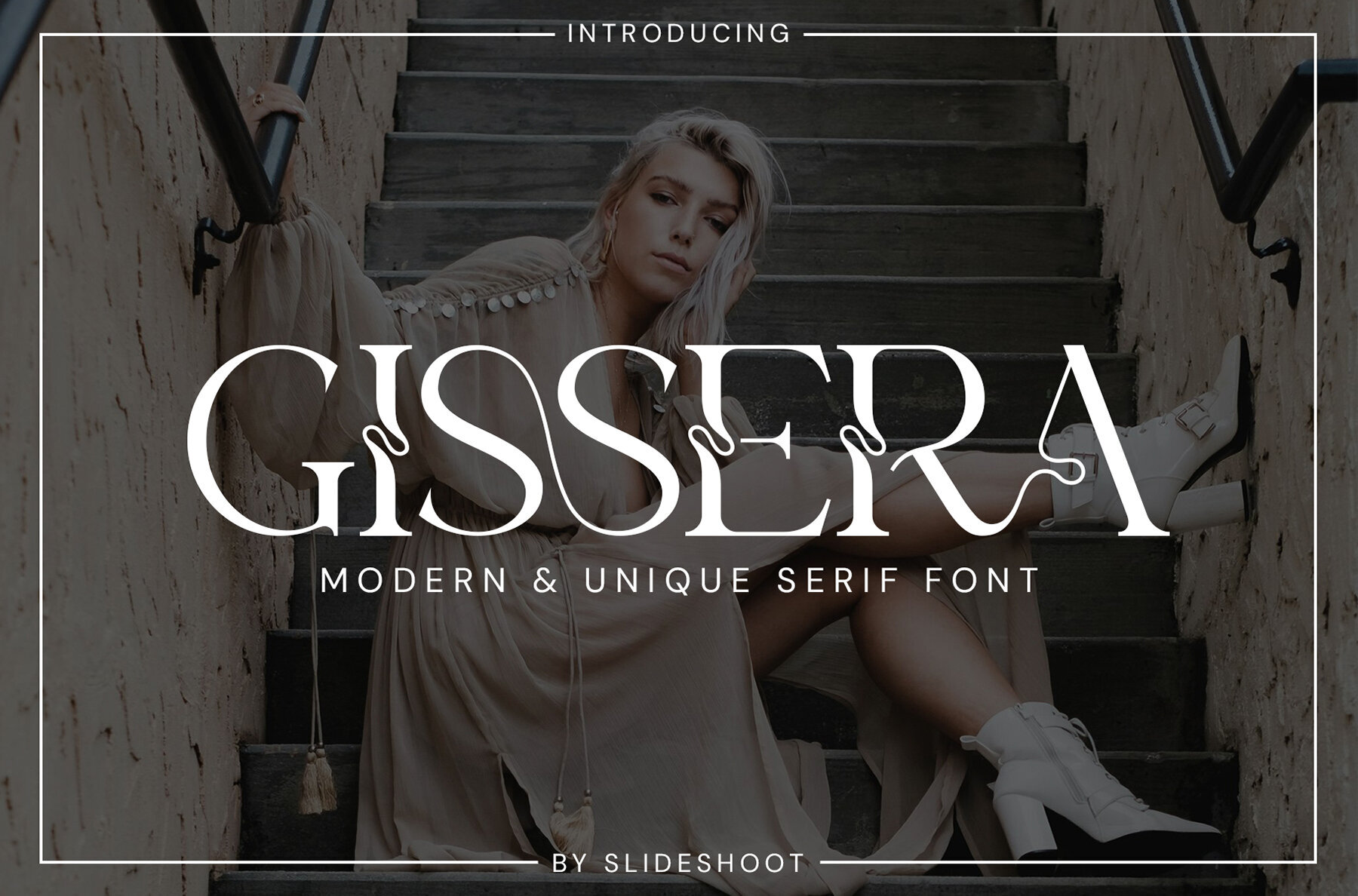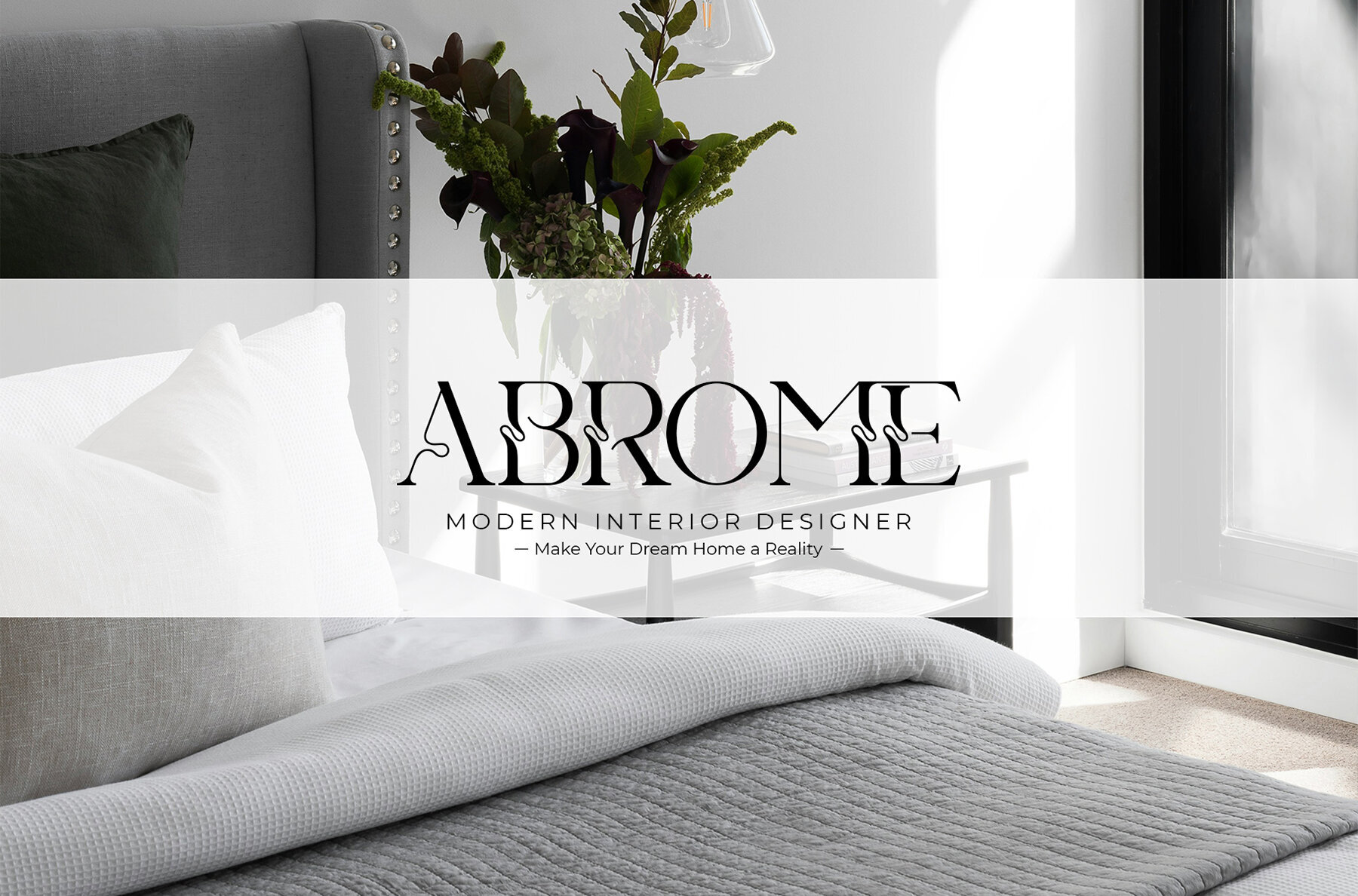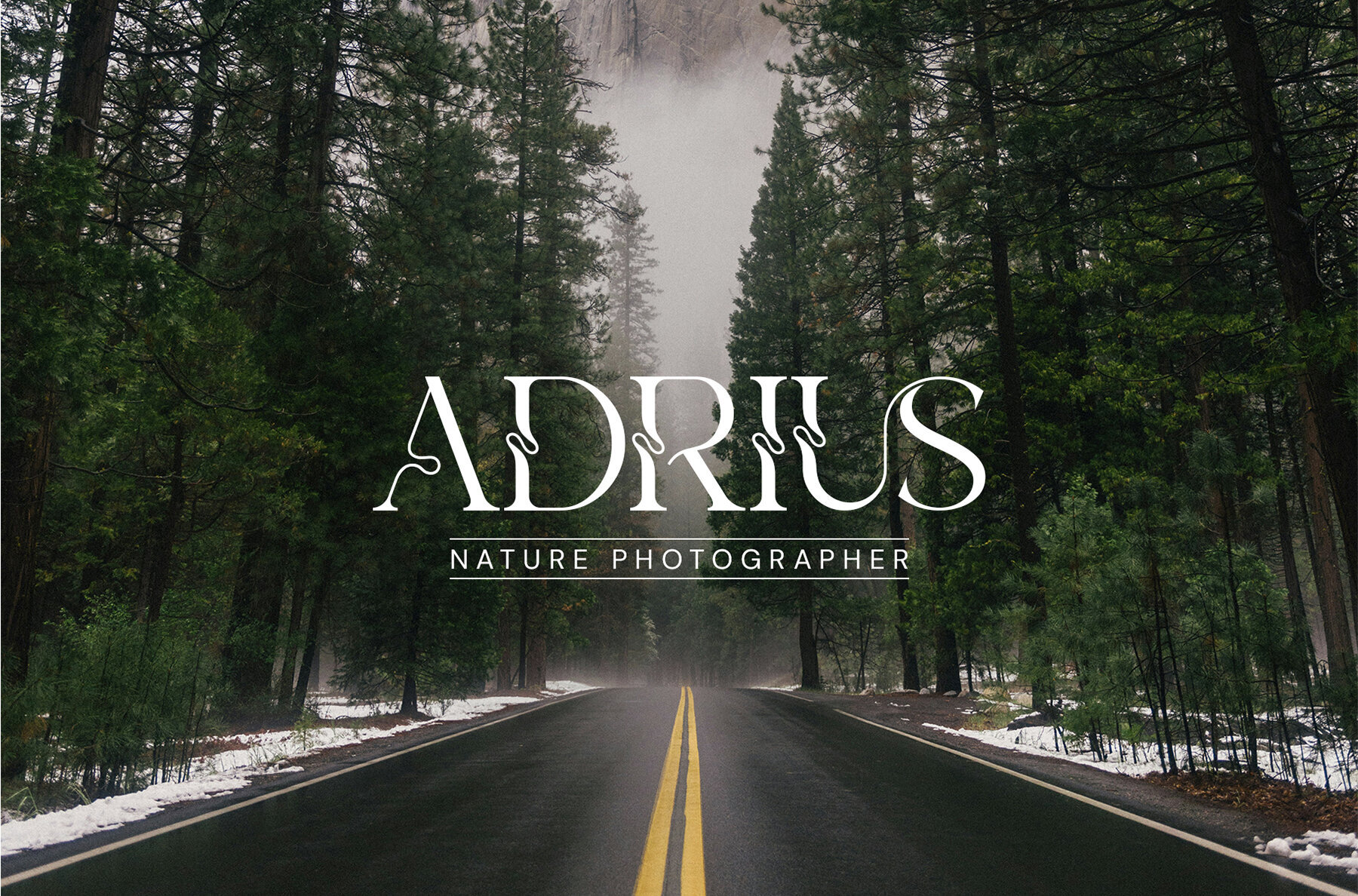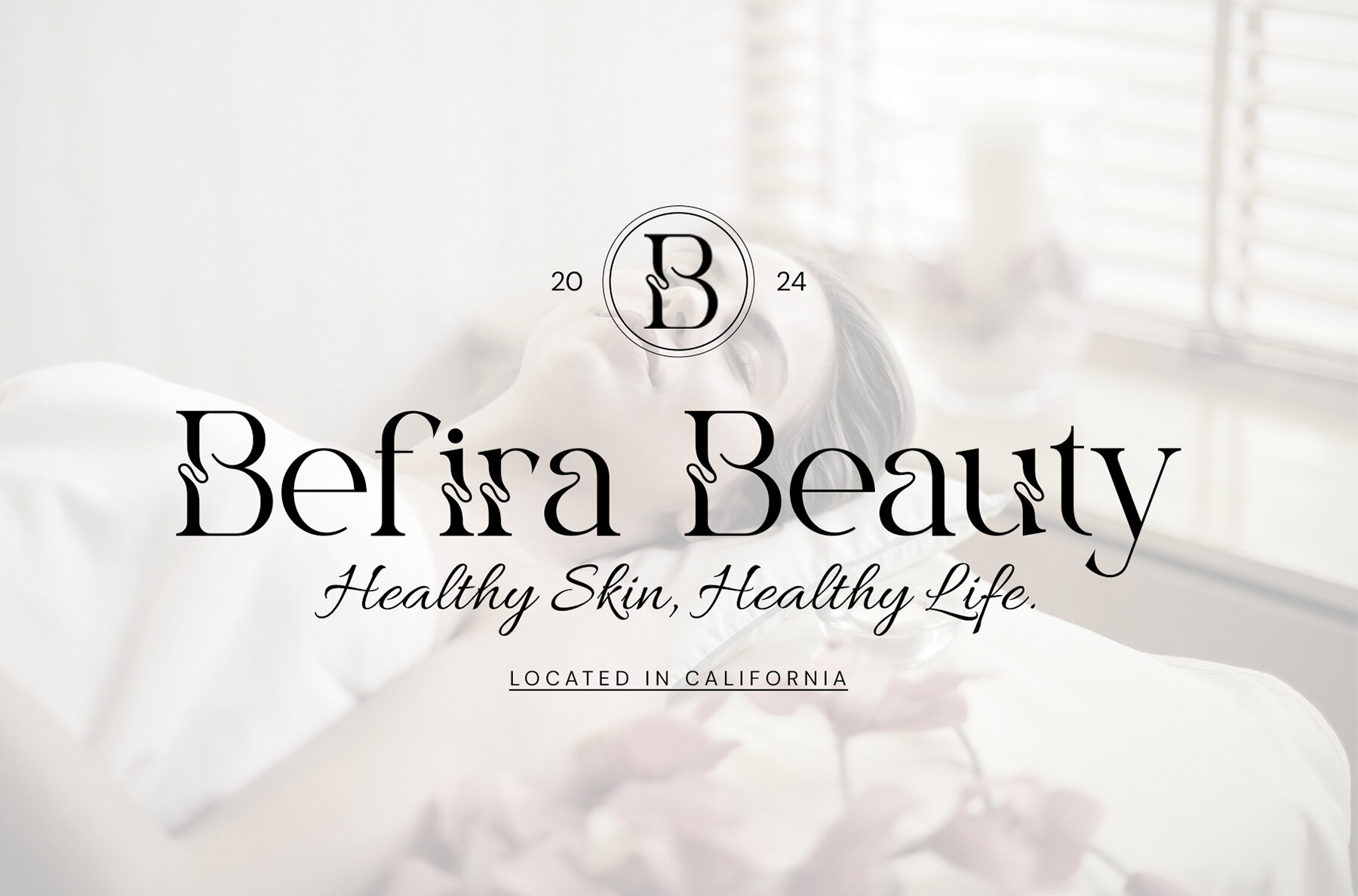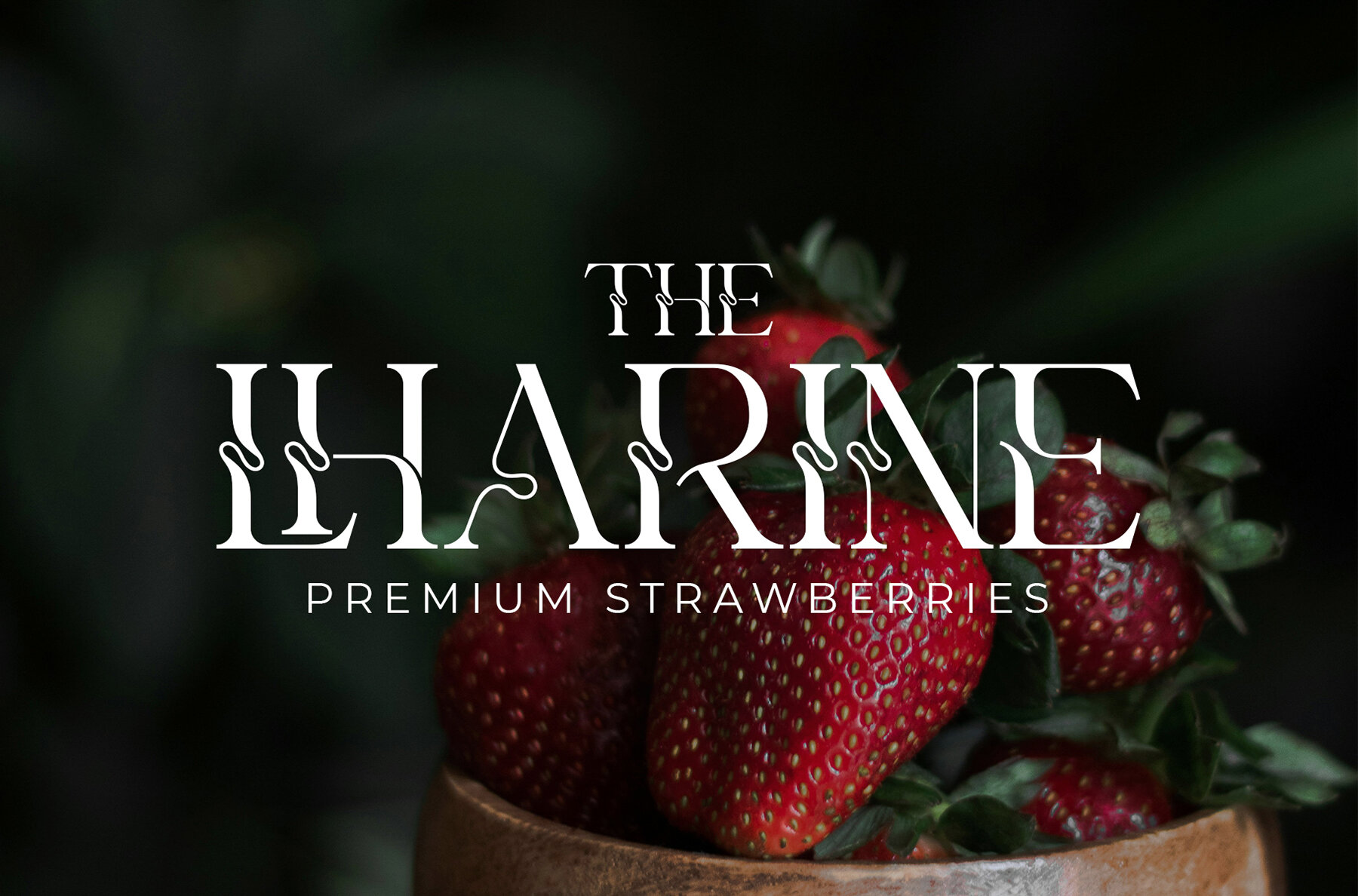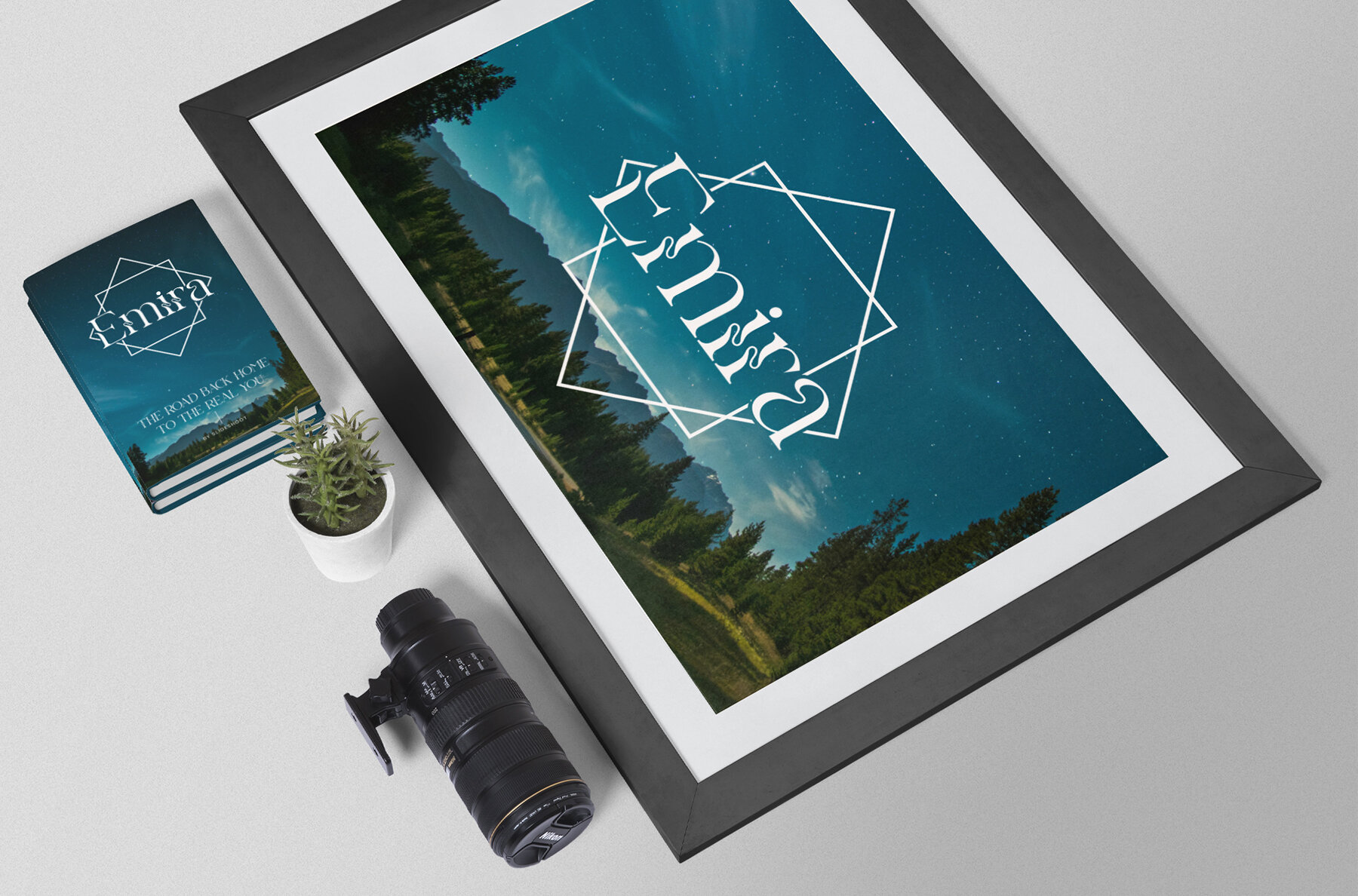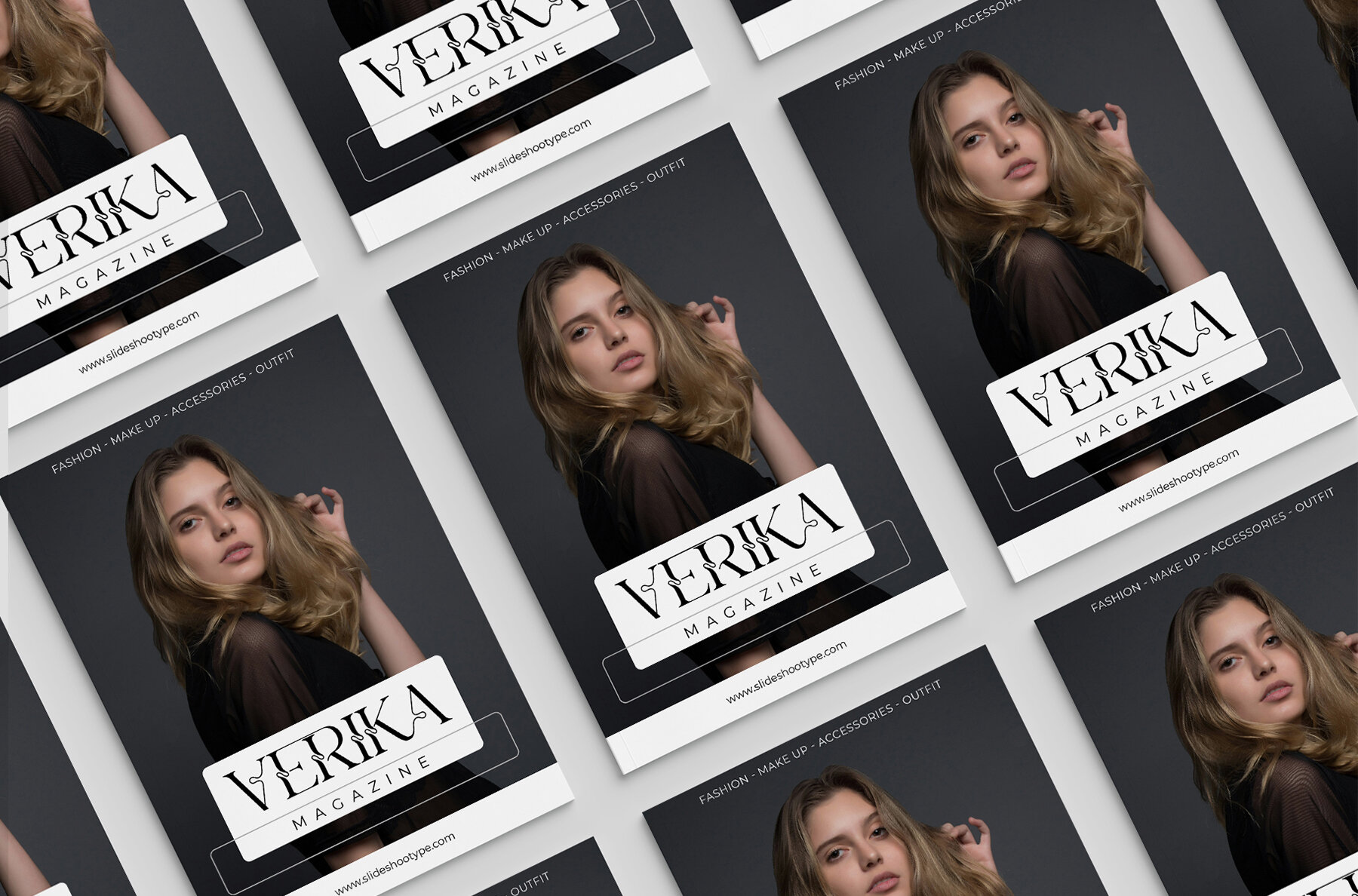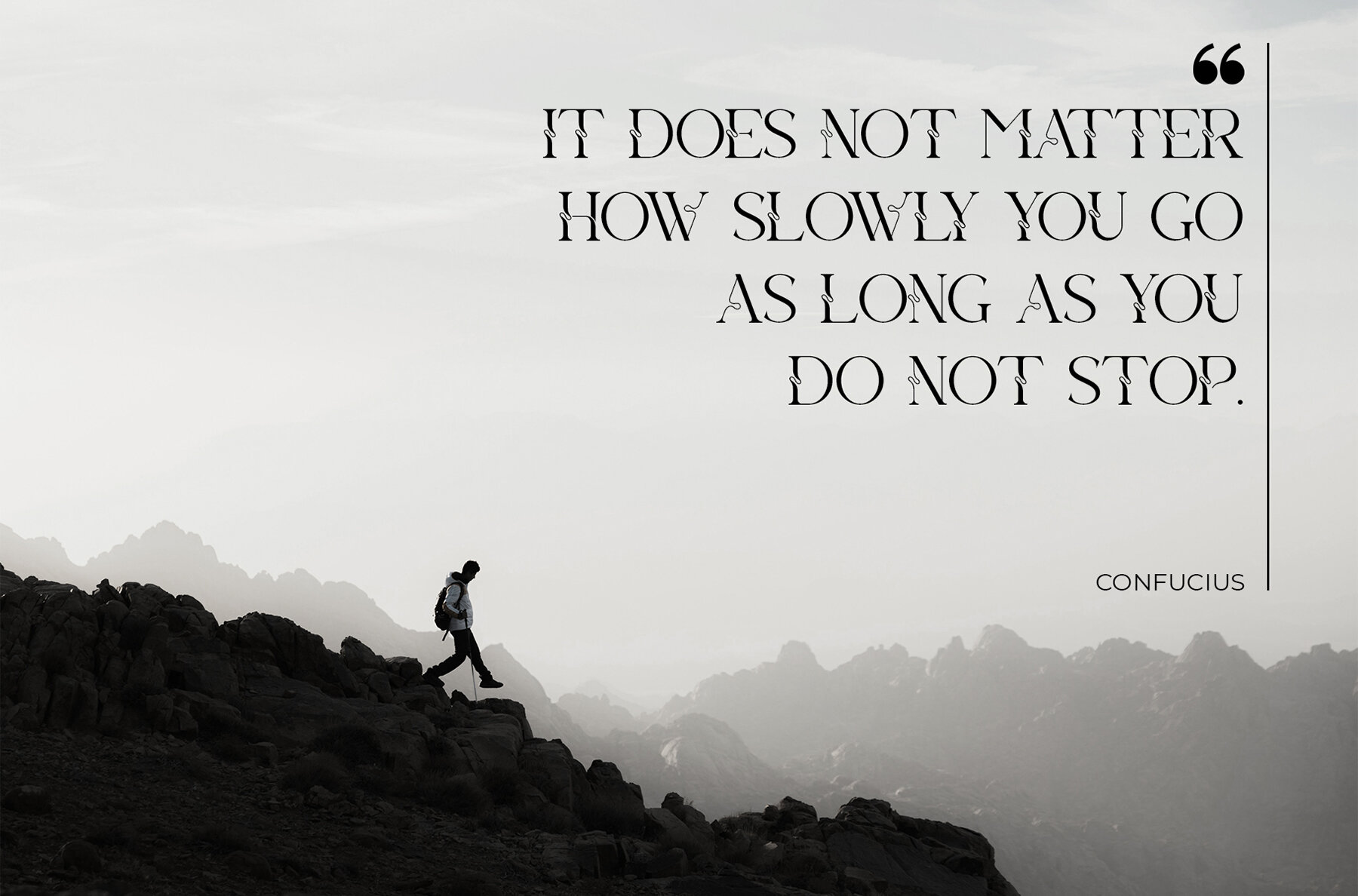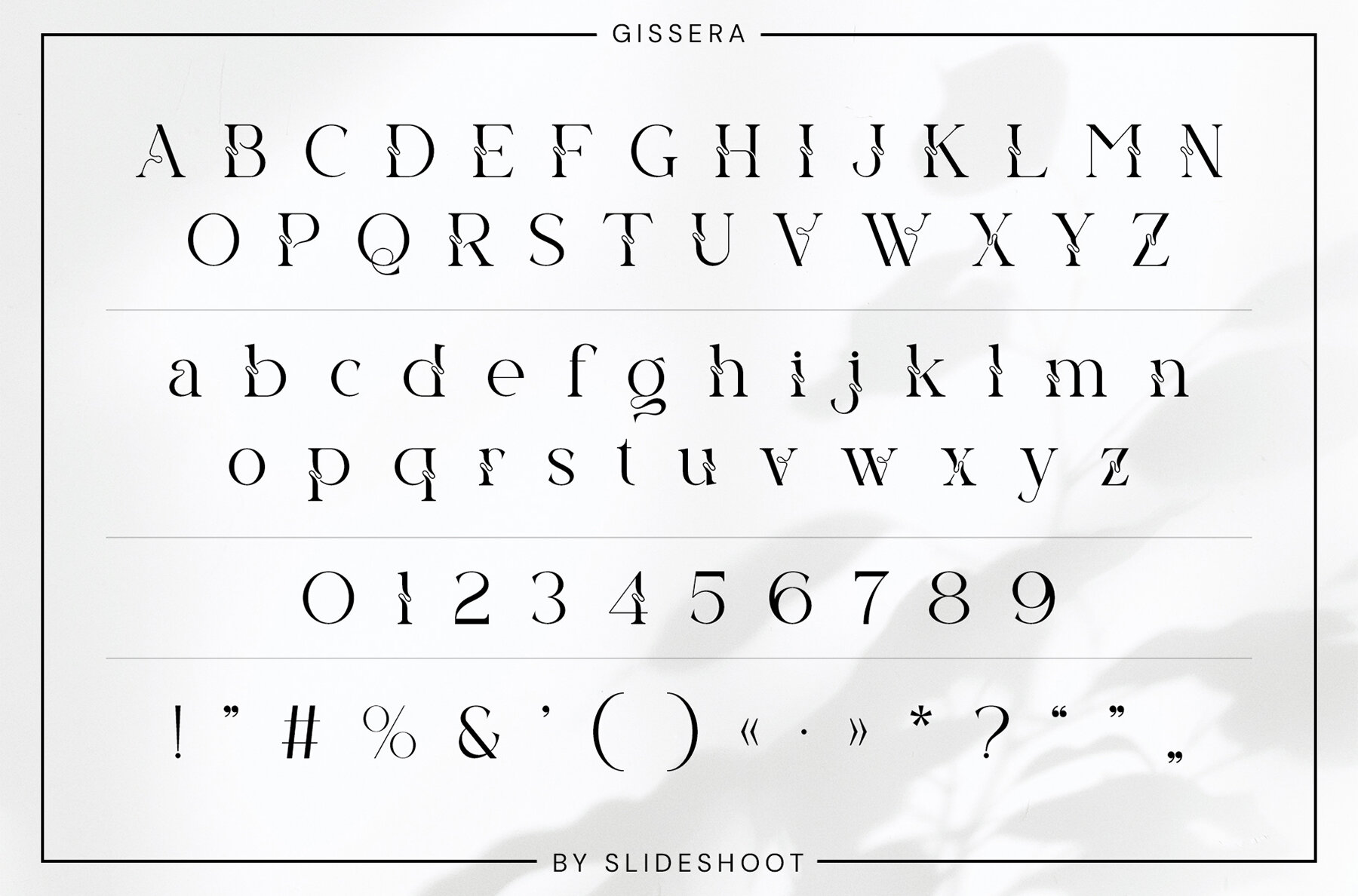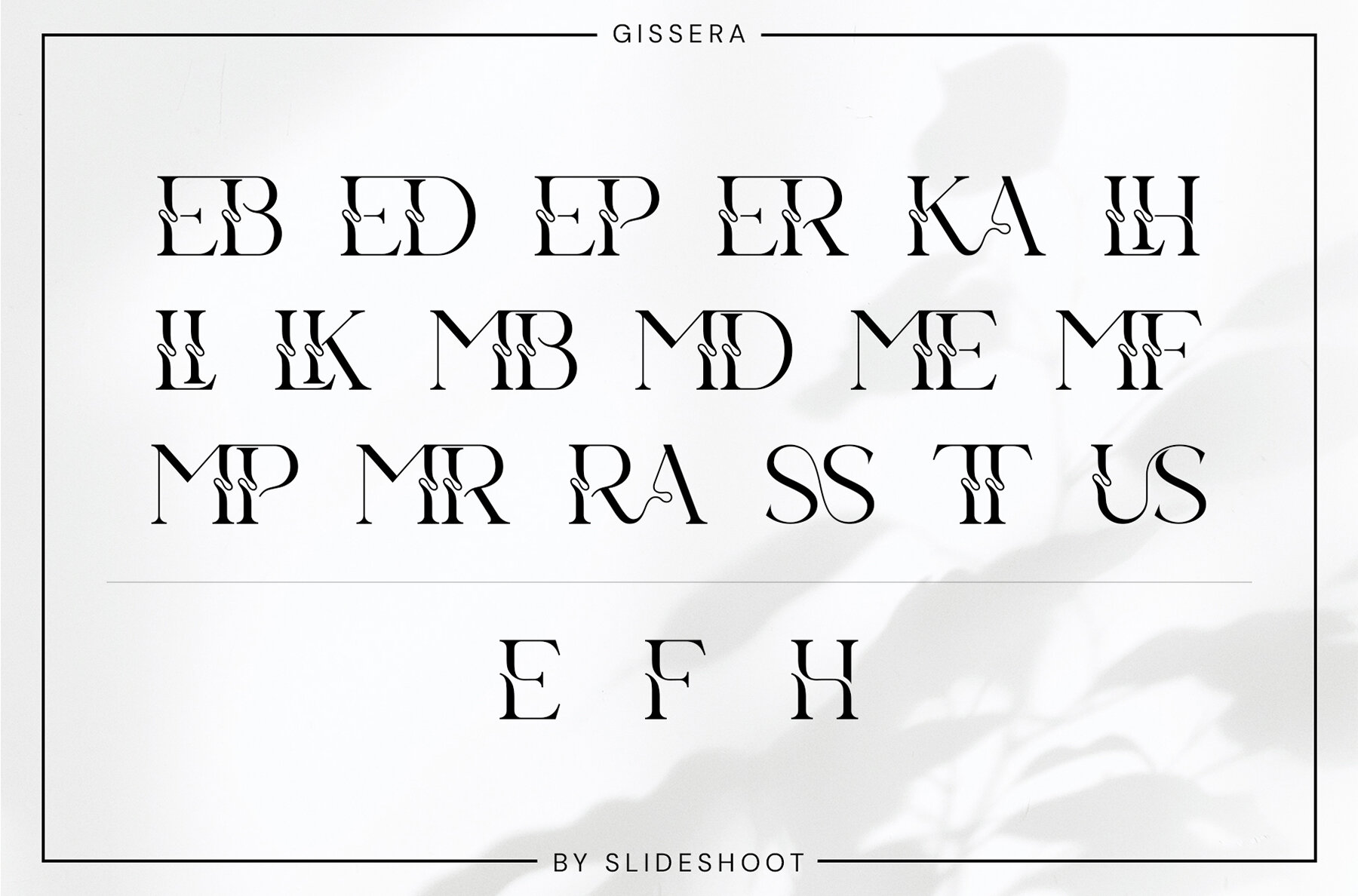
Gissera Font
Gissera Regular
Gissera by Slide Font is a well-crafted serif typeface known for its balance, smooth elegance, and stylish appearance. Its beautiful character makes it suitable for multiple design applications, enhancing aesthetics with each use.Gissera Serif: Balanced and Stylish Font for Versatile Design
Versatile Design Applications